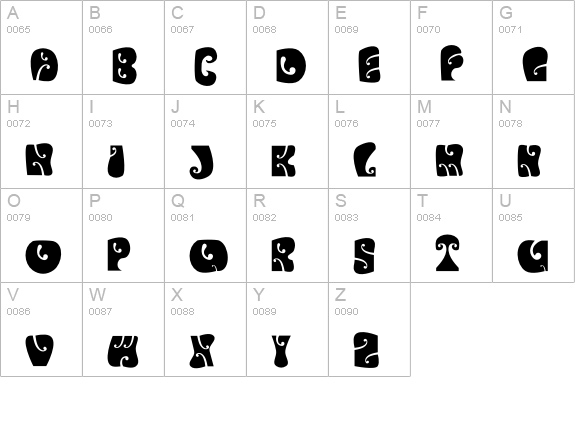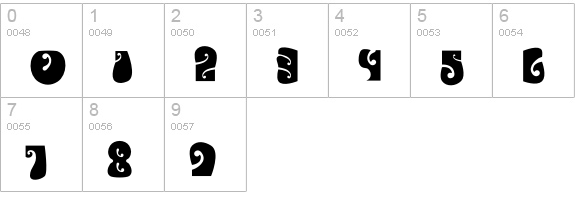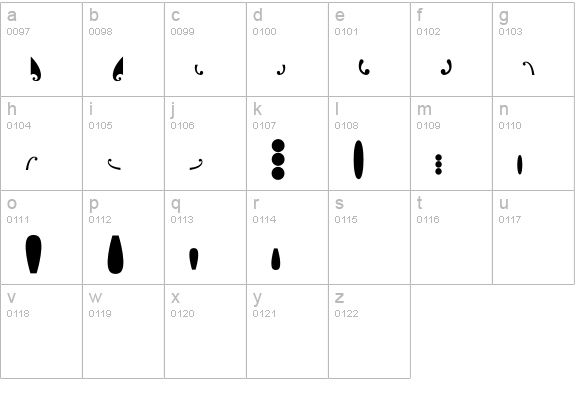
Psychedelic-Avalon Font Details
Step into a world where whimsy and magic collide with the Psychedelic-Avalon font. This playful and captivating typeface exudes an otherworldly charm that will transport your designs to a realm of creativity and wonder. With its intricate swirls and enchanting curves, this font is sure to add a touch of mystique to any project. But the best part? Psychedelic-Avalon font is completely free for you to download at FontsMarket.com! Yes, you read that right - this stunning font can be yours at no cost, allowing you to unleash your imagination without any barriers. So why wait? Let the Psychedelic-Avalon font weave its spell on your designs and watch them come to life in a truly magical way.